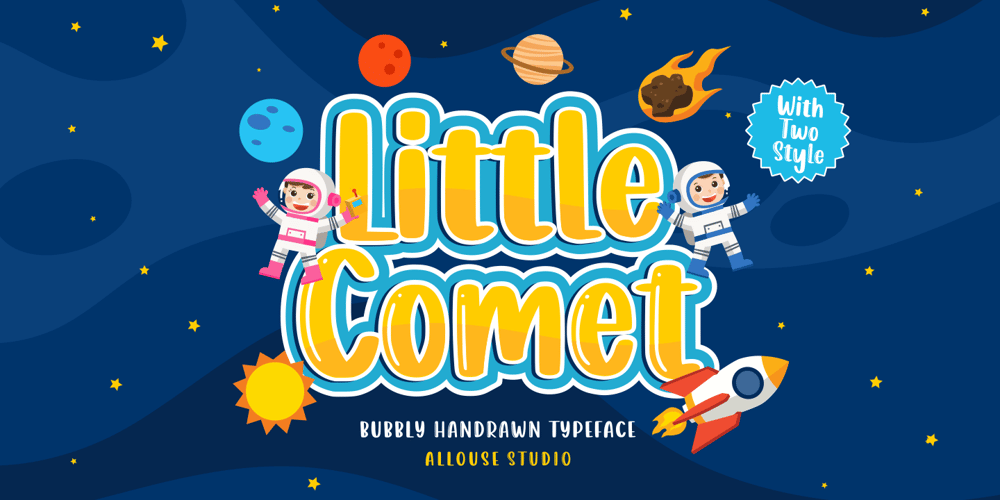
Little Comet Font Family was designed by Fachrizal Yusuf and published by Allouse Studio. Little Comet contains 2 styles and family package options. Little Comet a Bubbly Handdrawn Typeface with two style that will give you choices to explore.Little Comet is perfect for product packaging, branding project, megazine, social media, wedding, or just used to express words above the background.Both styles also come with Multi-Lingual Support.Enjoy the font, feel free to comment or feedback, send me PM or email. Thank You!